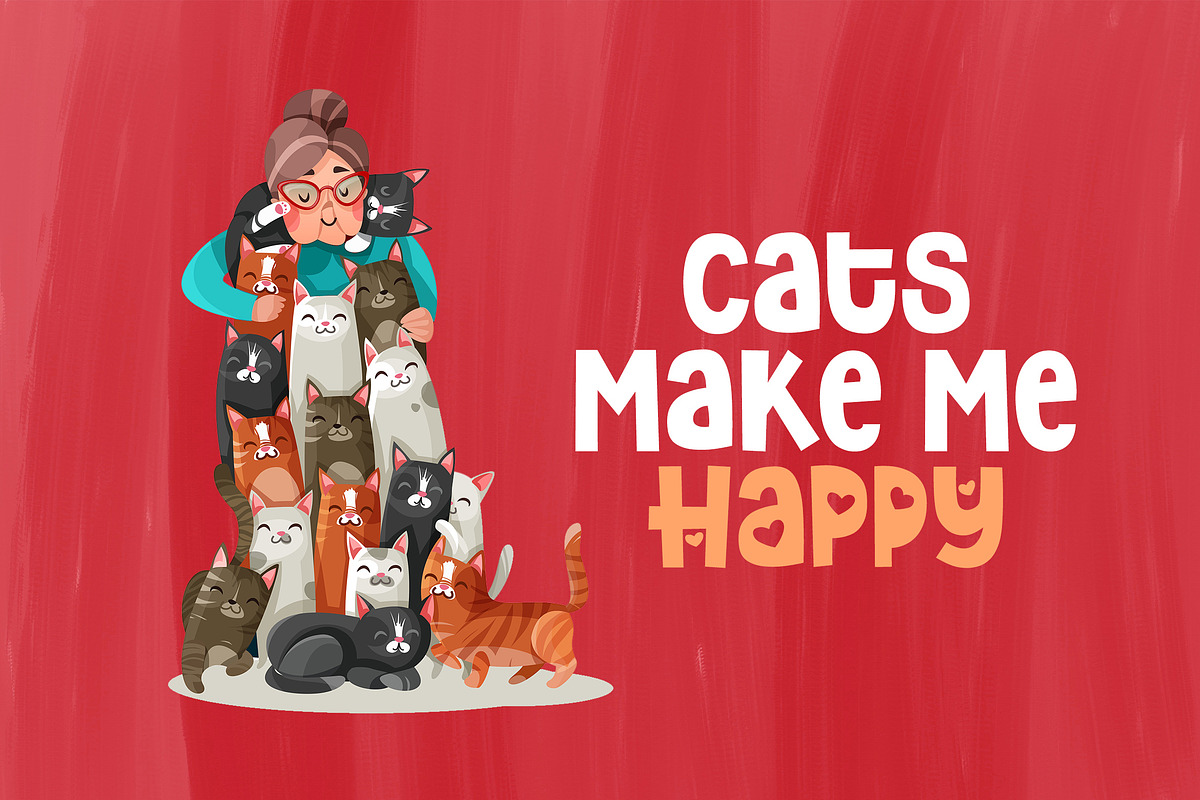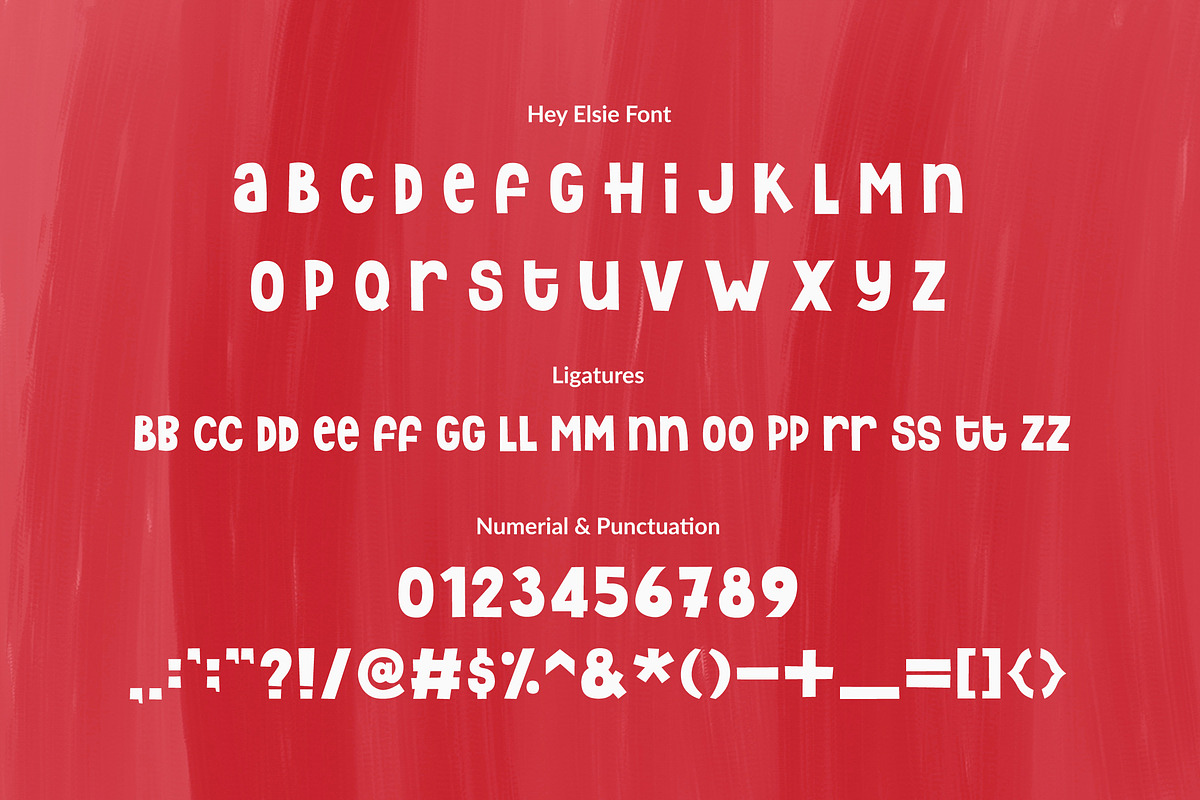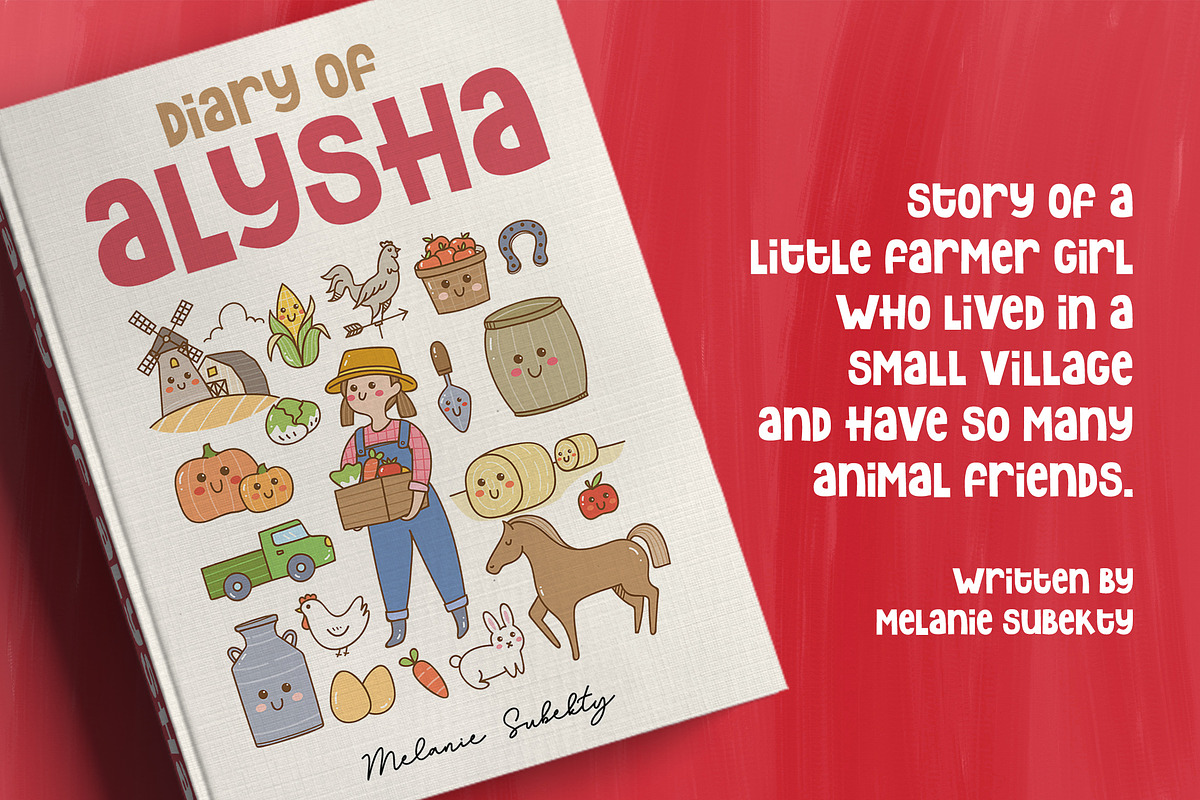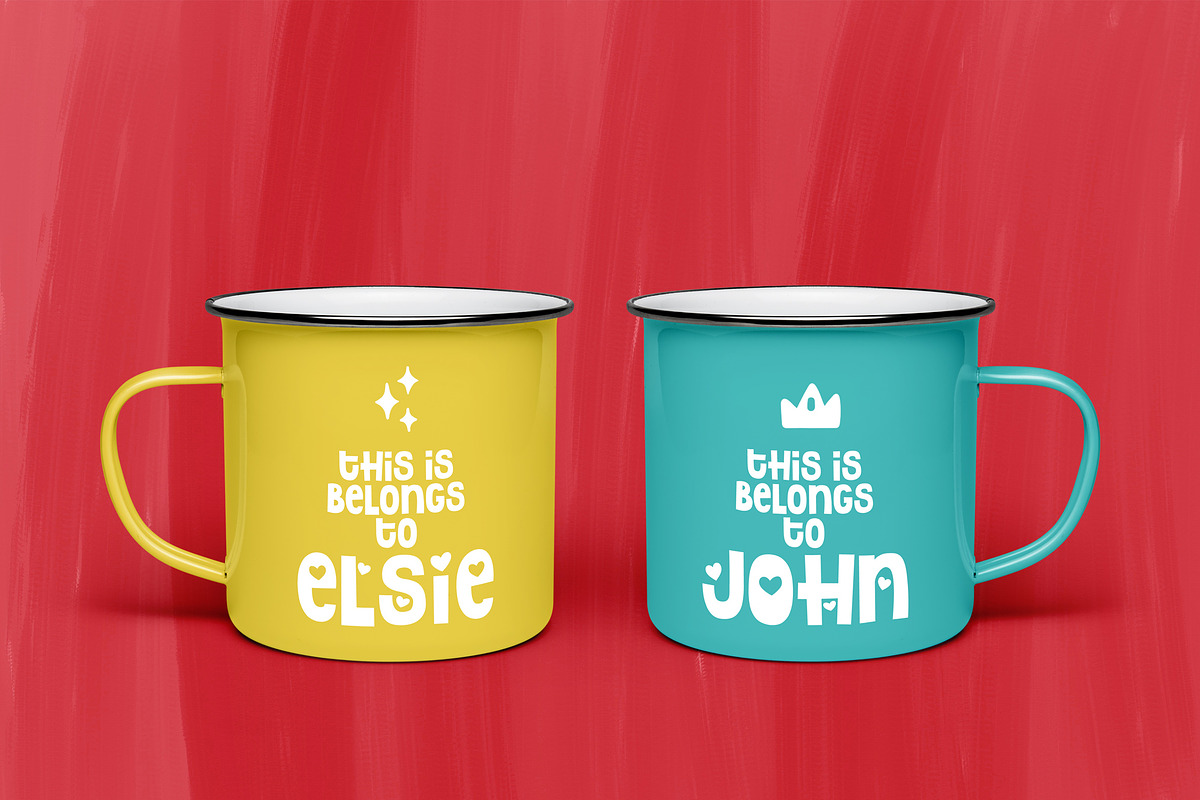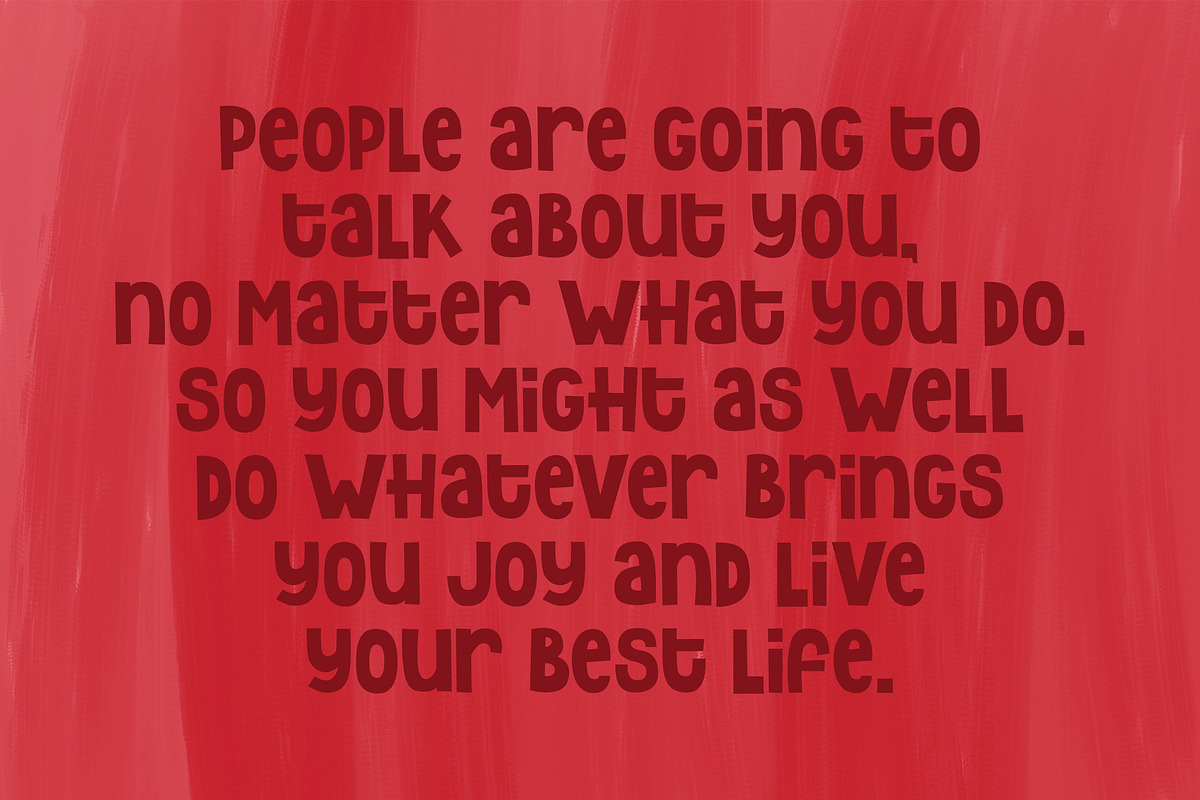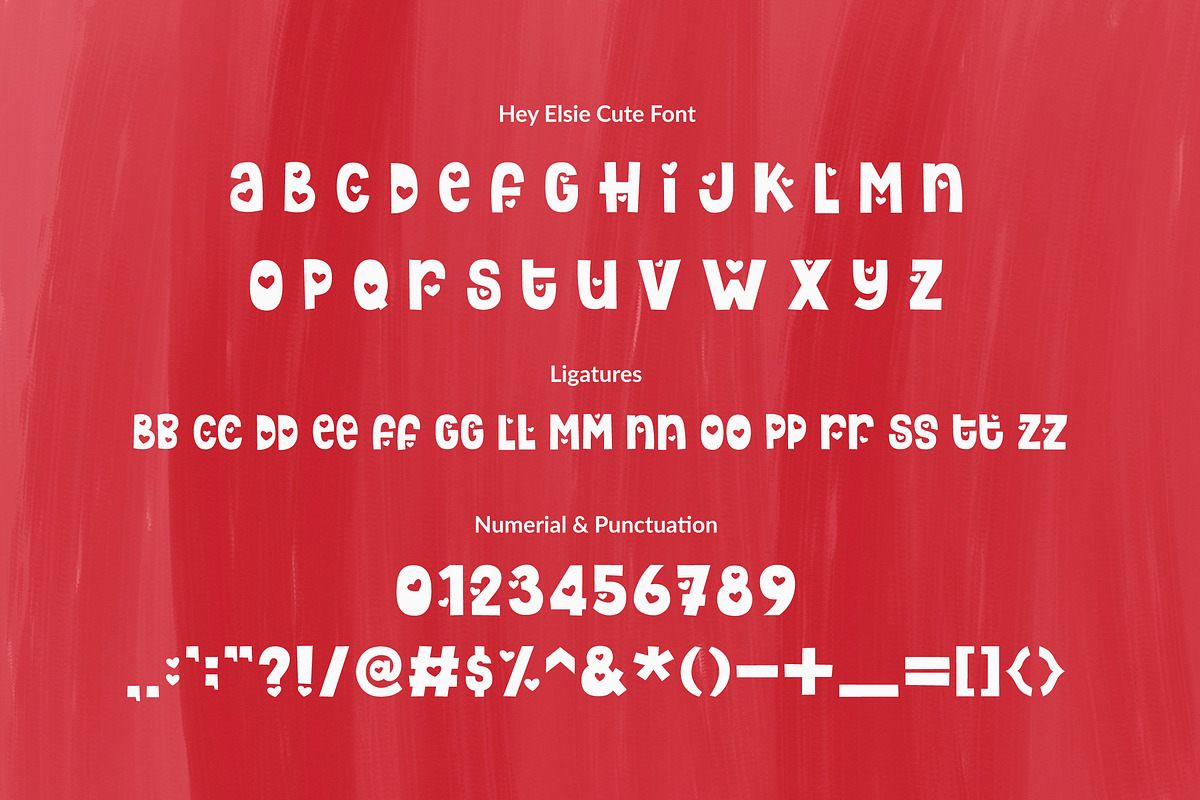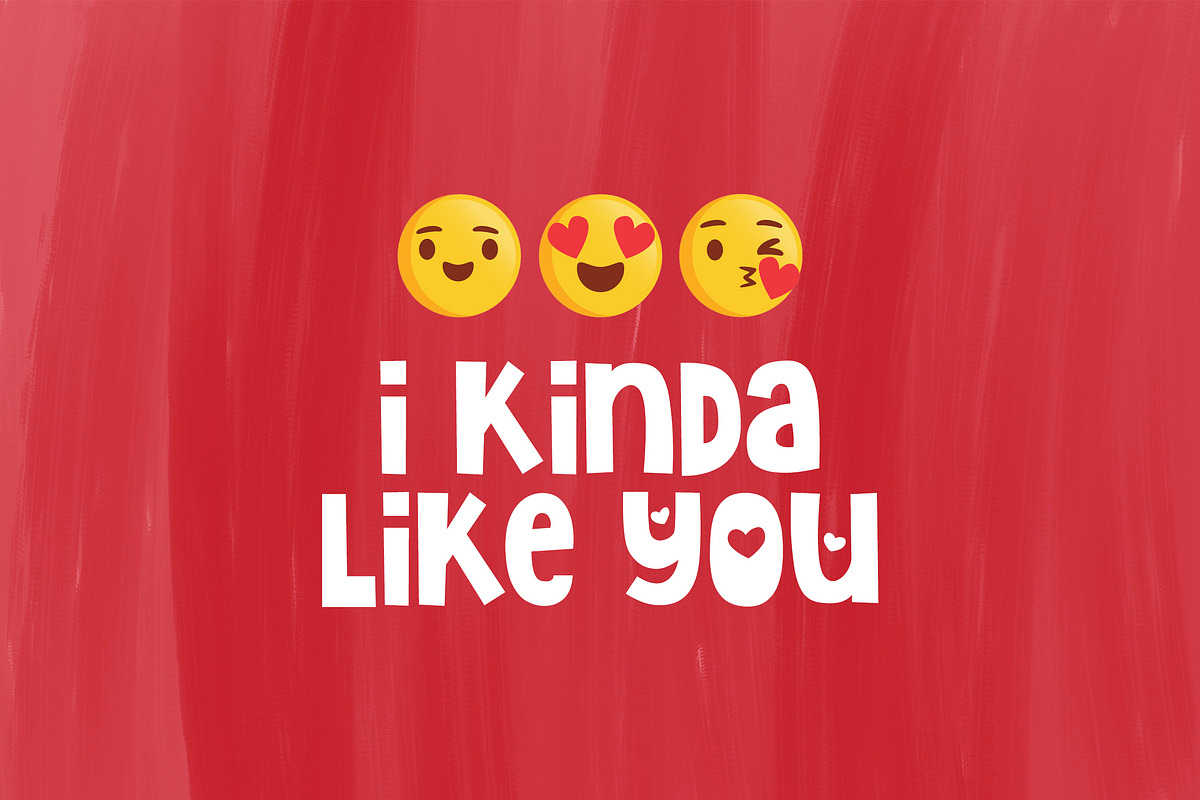
Hey Elsie ~ Two Font Styles
The Hey Elsie is an lovely display font. It comes in a regular version and a cute version, which can be combined perfectly! The cute version includes amazing hearts which will give your design a cute and playful touch.